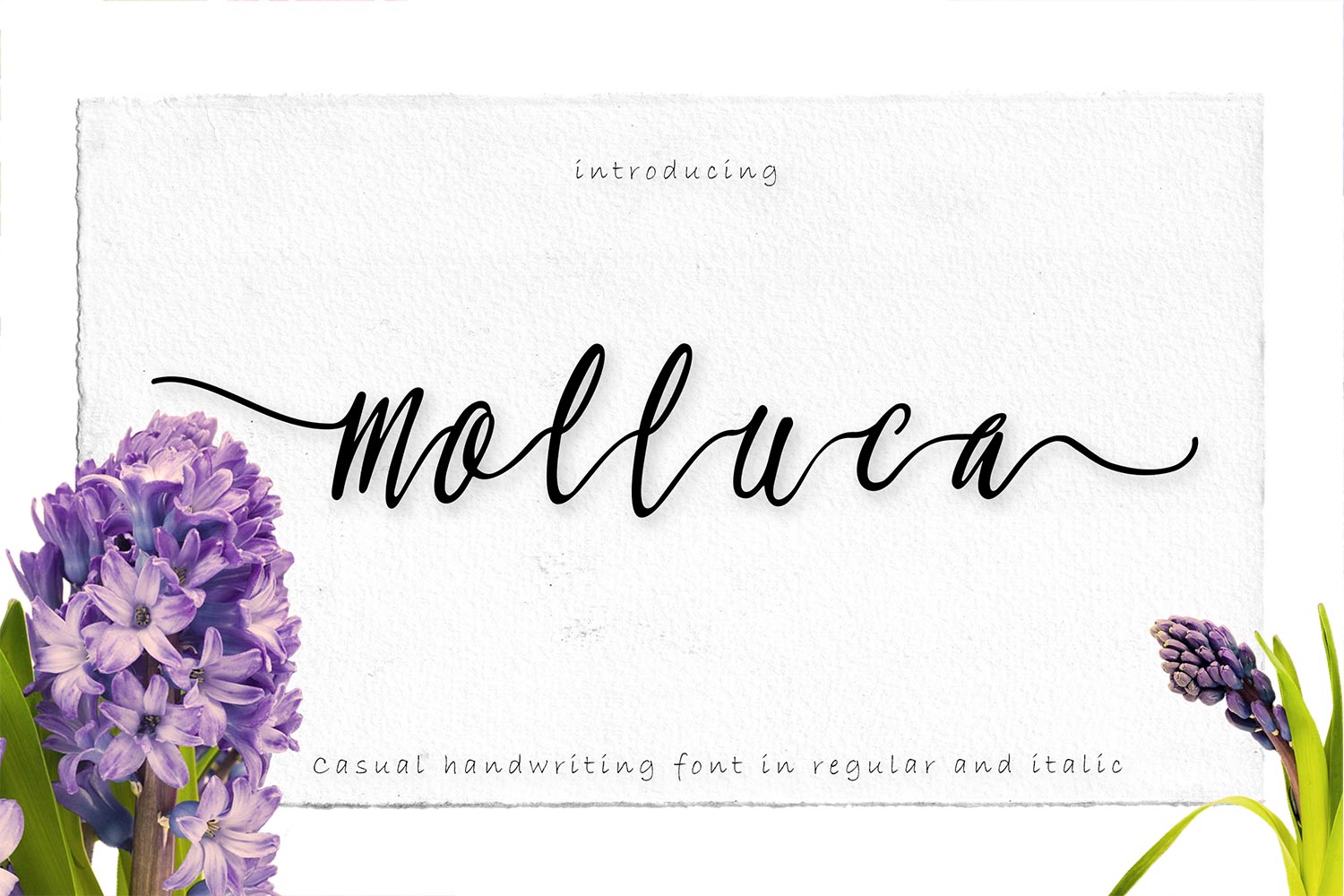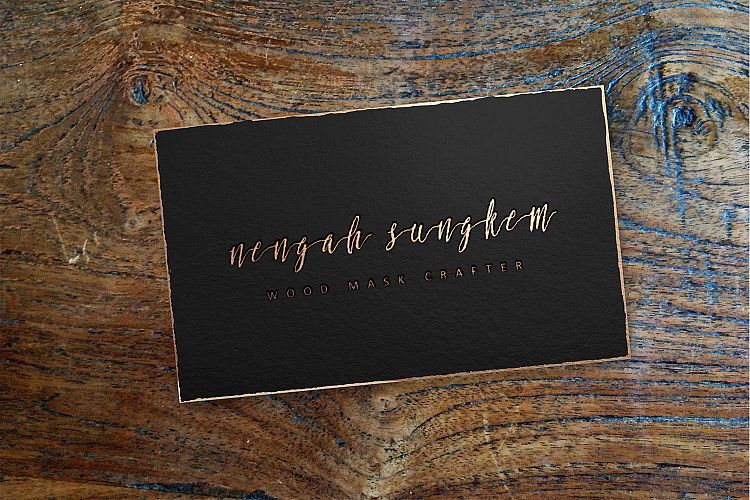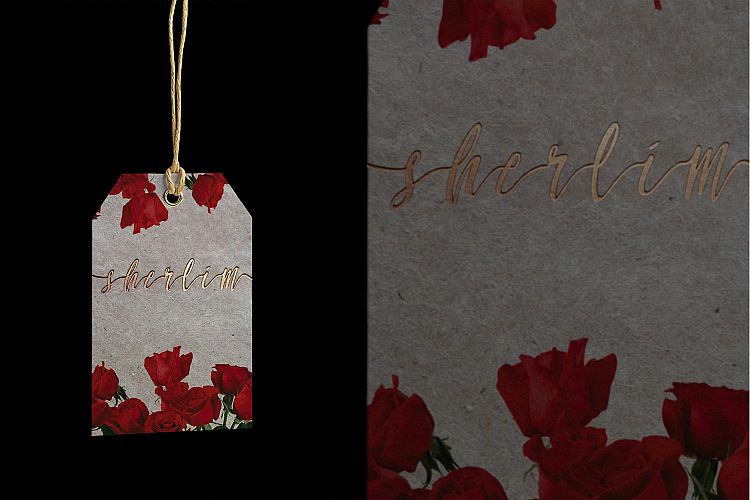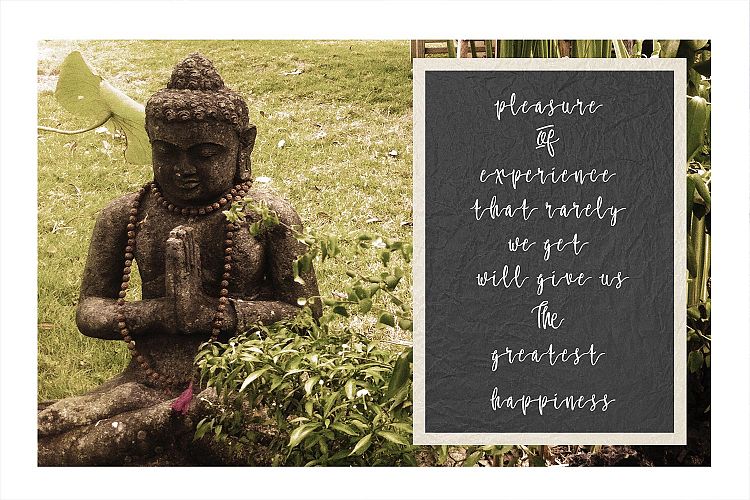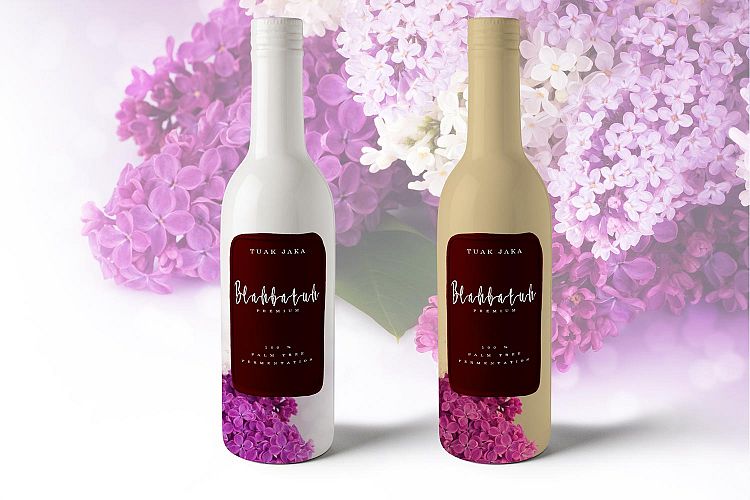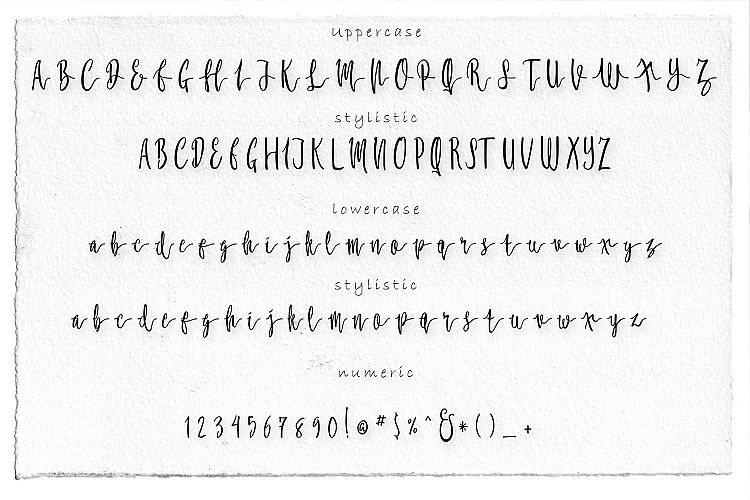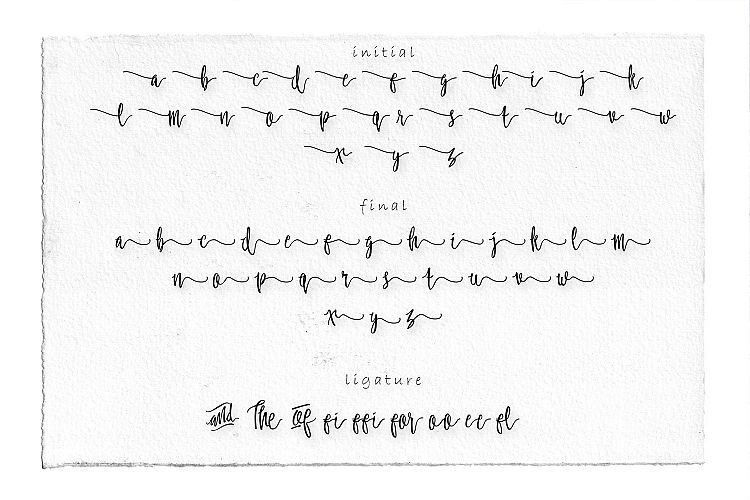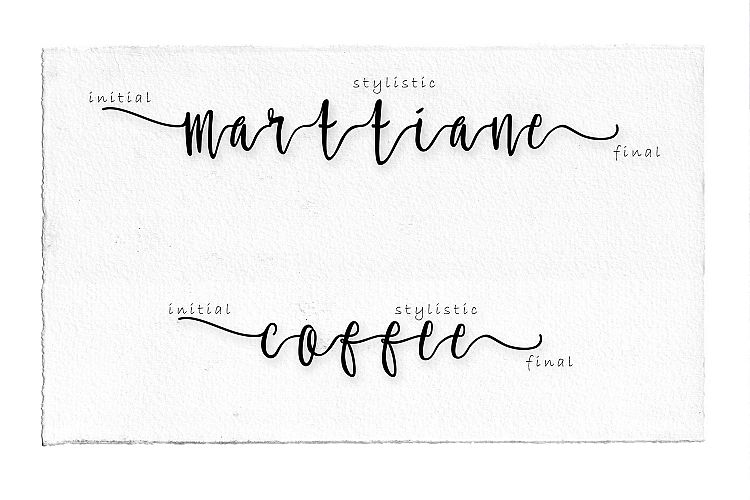
HomeScript FontsMolluca Font Script Fonts Molluca Font FacebookXPinterestWhatsApp Molluca Font Poster 2 Molluca Font Poster 3 Molluca Font Poster 4 Molluca Font Poster 5 Molluca Font Poster 6 Molluca Font Poster 7 Molluca Font Poster 8 About Molluca Font Molluca is a handwritten font that is meant to leave an impression. It’s a smooth, connecting script. DOWNLOAD ON CREATIVE FABRICAThis font is sold and delivered by Creative Fabrica. Font Canyon may earn a commission if you buy through this link. People also explored Iris Font Adora Butterchese Font Magaret Font Amighost Font hey y’all sketch font Antelope Radio Active Font Patrez Font 361 0 TagsMolluca Font Previous articleDestain FontNext articleBuadaze Font LEAVE A REPLY Cancel reply Comment: Please enter your comment! Name:* Please enter your name here Email:* You have entered an incorrect email address! Please enter your email address here Website: Save my name, email, and website in this browser for the next time I comment. Personal Use Free Bitcrusher Condensed Bold Personal Use Free Read more about this font Bulky Personal Use Free Read more about this font Feather Script Personal Use Free Read more about this font Electroharmonix Personal Use Free Read more about this font BLOG Modern Sans-Serif Fonts That Brands Love in 2025 In 2025, modern sans-serif fonts remain a top choice for brands looking to project clarity, professionalism, and... Free Fonts Risk: Why Free Fonts Can Be Dangerous for Designers Elegant Wedding Invitation Fonts – Handwritten & Script Fonts Exploring Font Trends